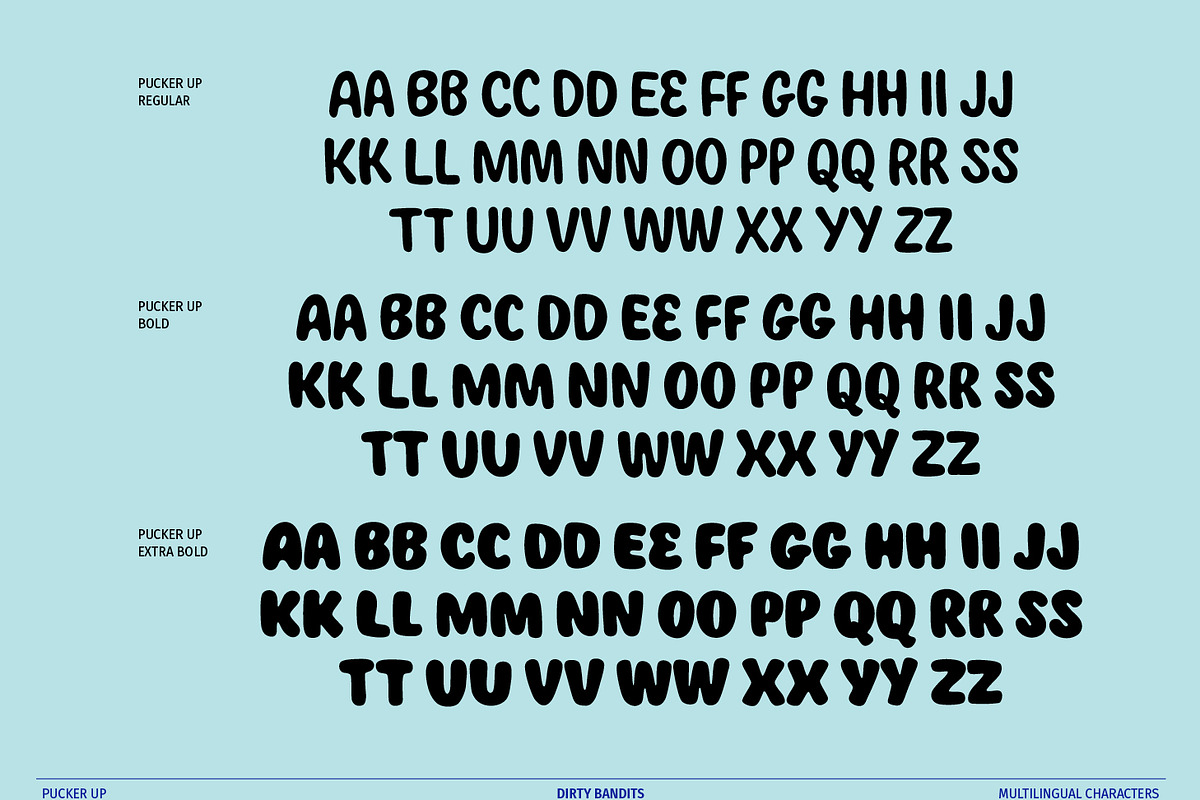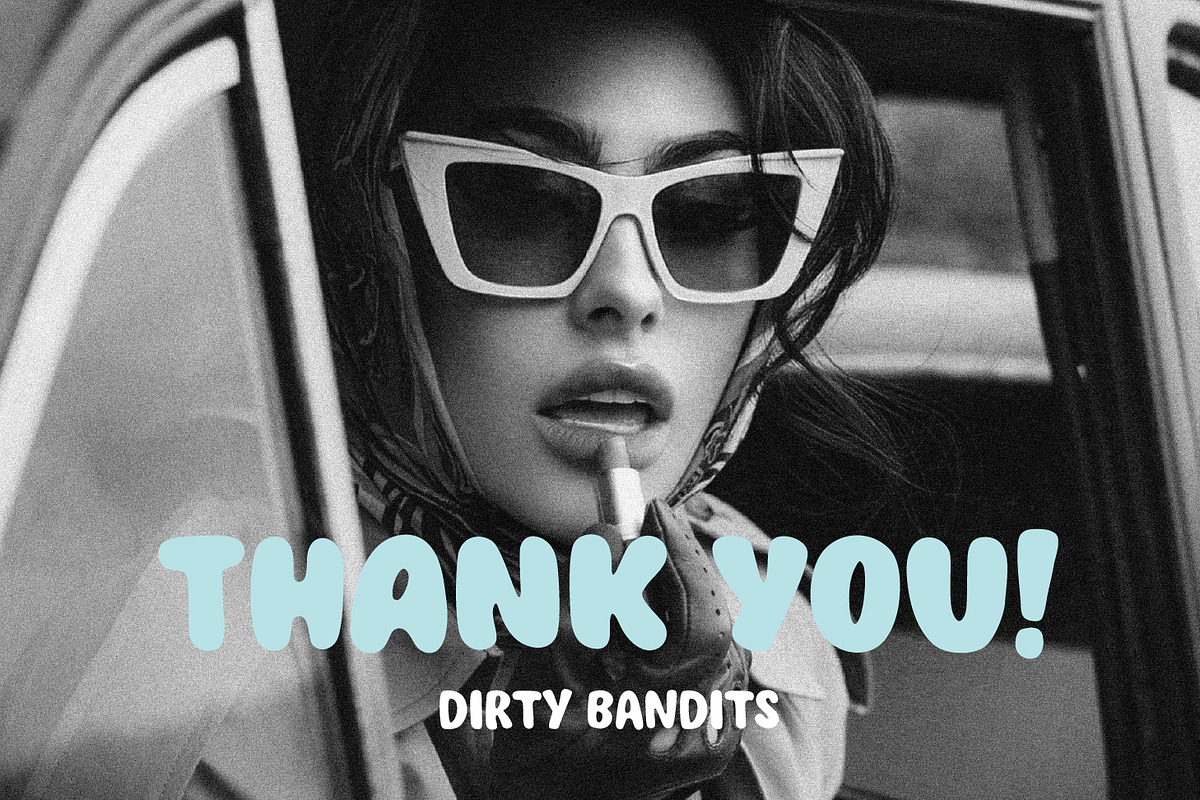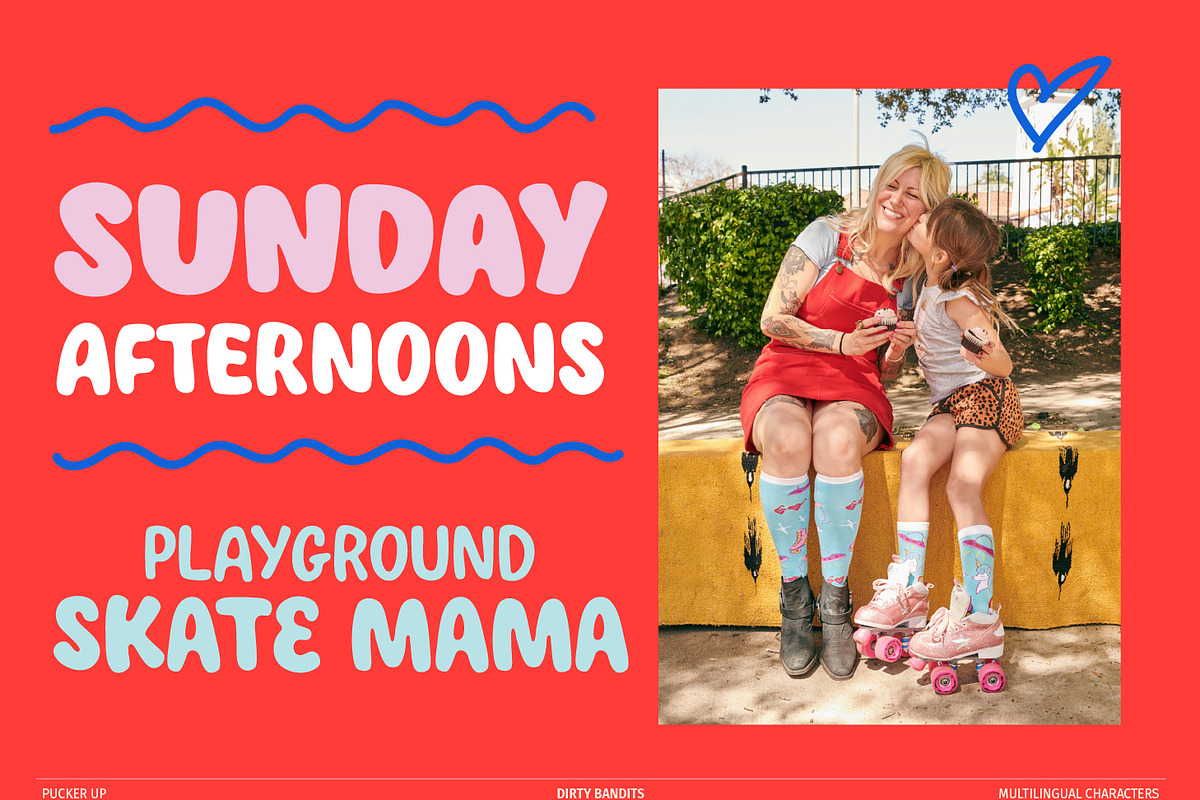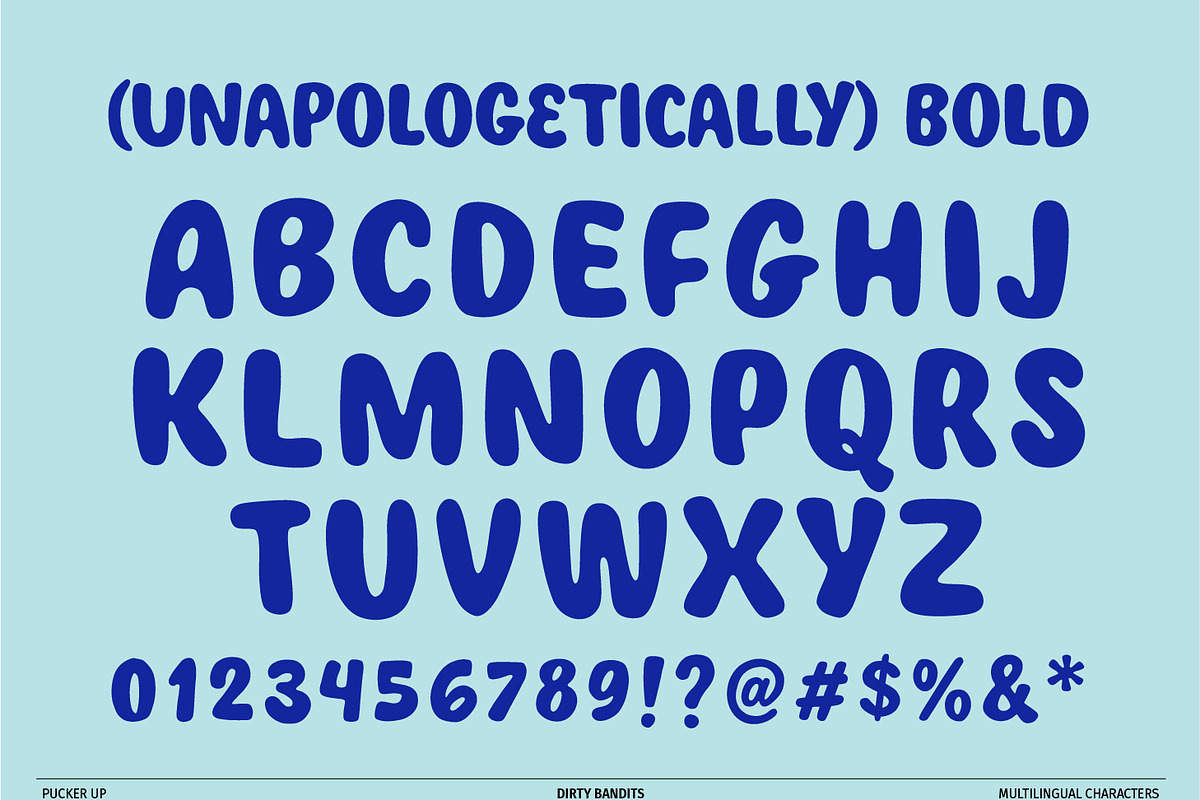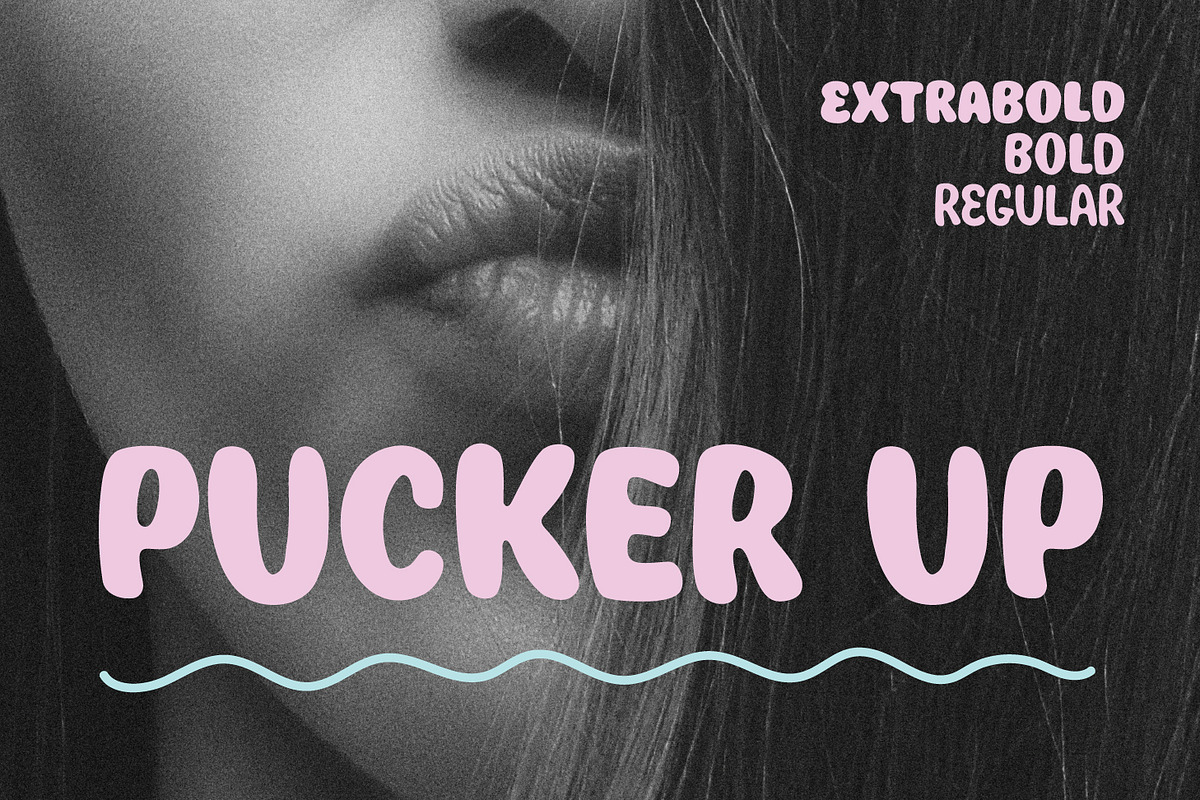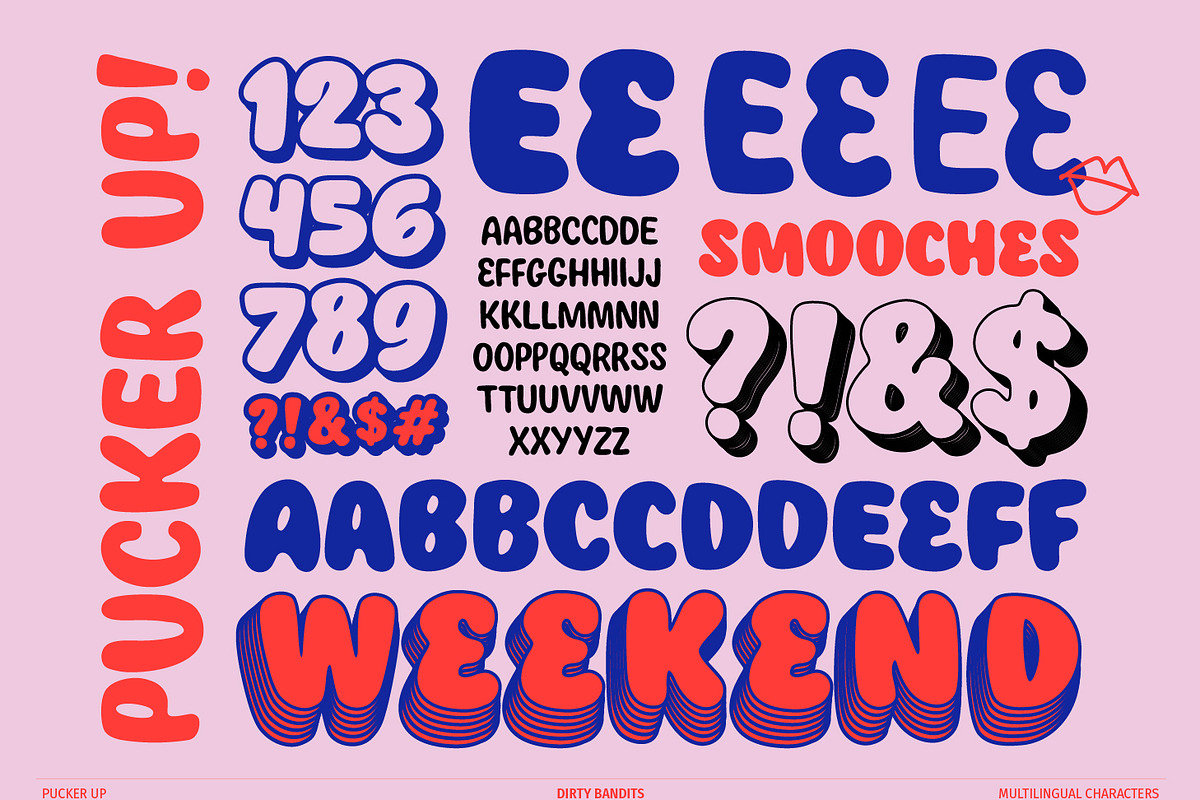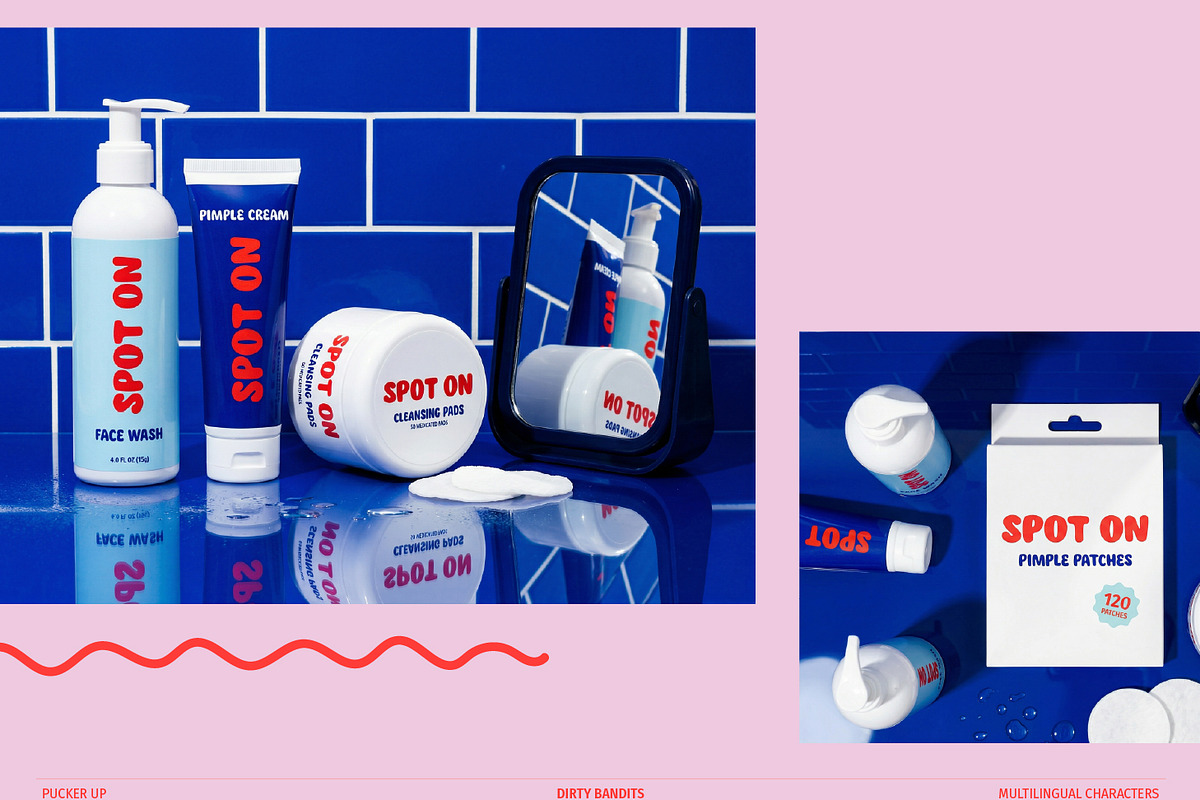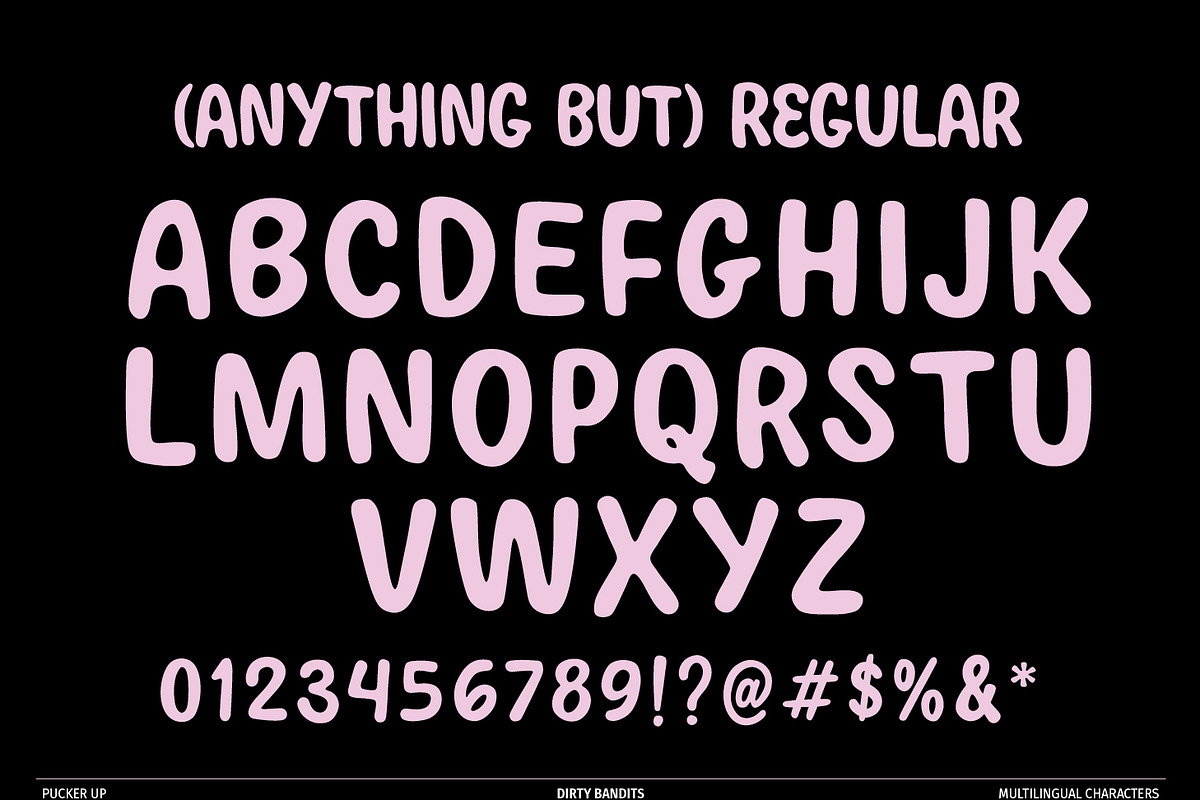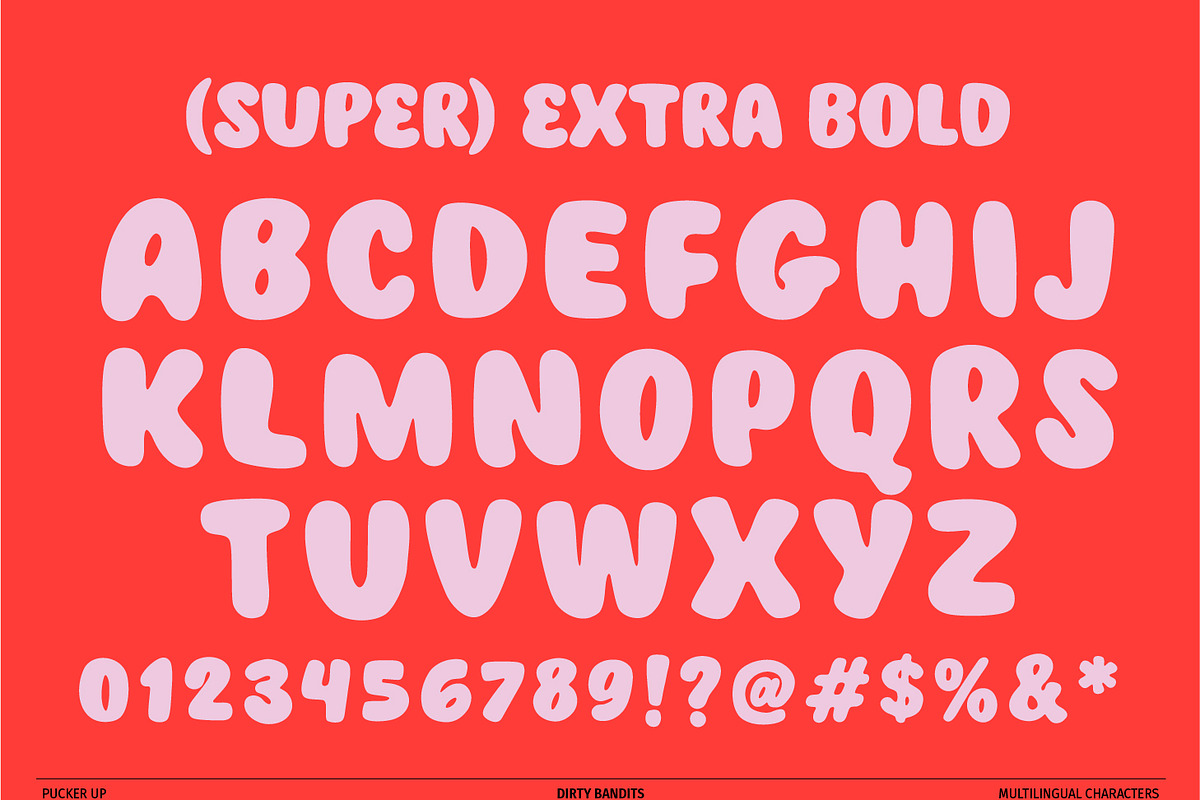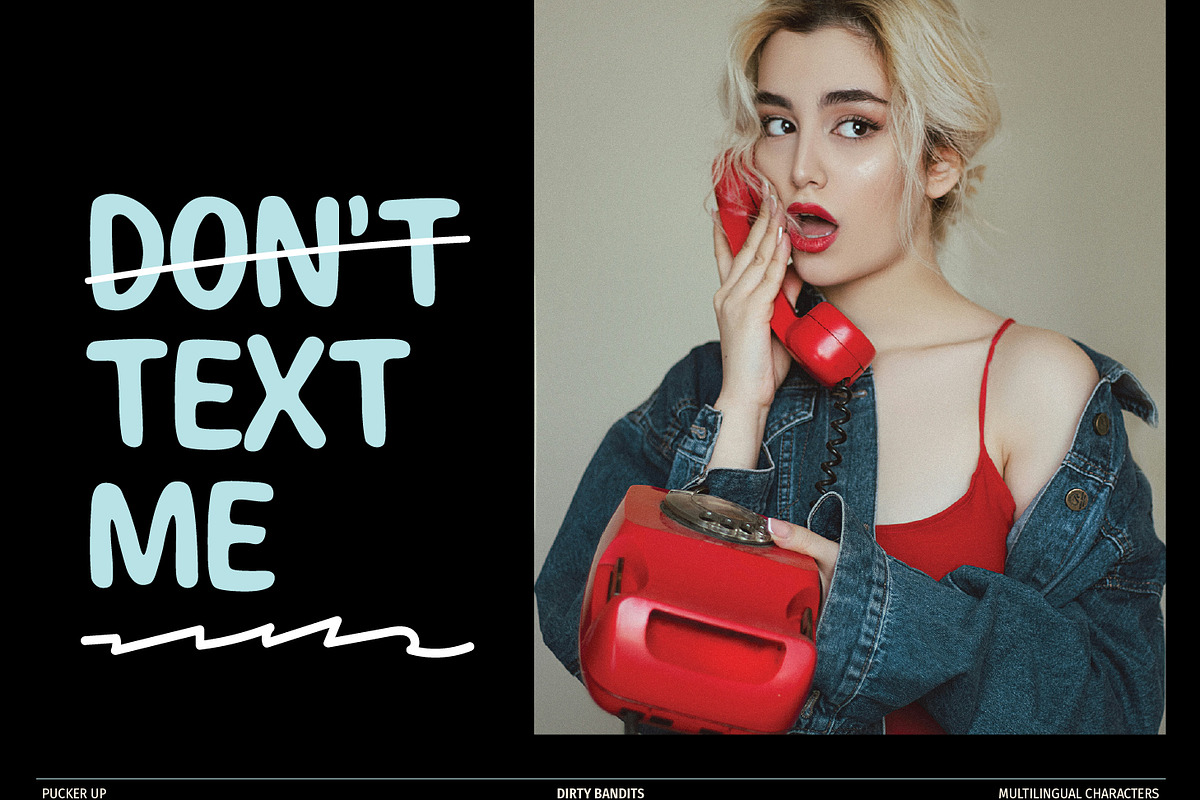
Pucker Up
Pucker Up is a organic, fluid display family, offering a high-impact alternative to traditional geometric sans-serifs. Defined by soft, exaggerated terminals and rounded counters, the typeface mimics physical surface tension to provide a rhythmic, tactile silhouette that remains legible across commercial packaging and brand identity systems. Family includes a balanced Regular weight for text with an unapologetically dense Bold weight for primary headlines, and an ultra heavy weight for short call outs, this three-weight system delivers a versatile, soft aesthetic tailored for mission-driven retail brands, kids decor, beauty brands, modern streetwear, and high-engagement digital environments.